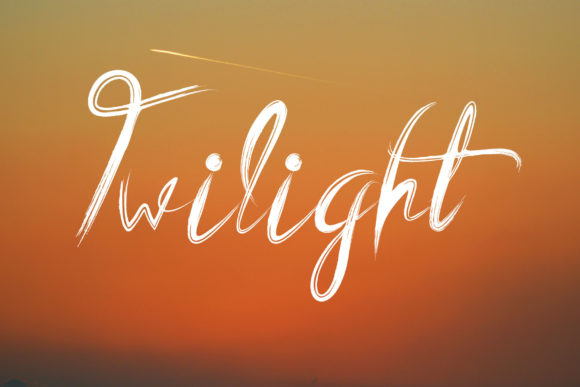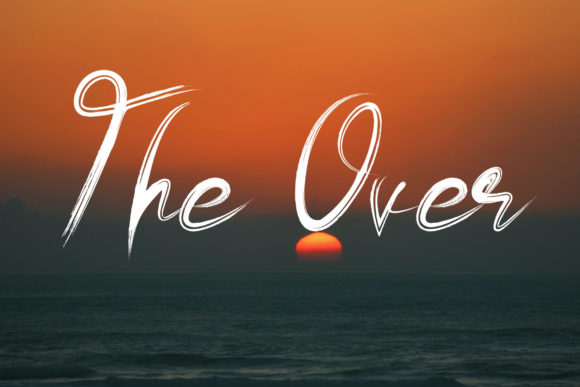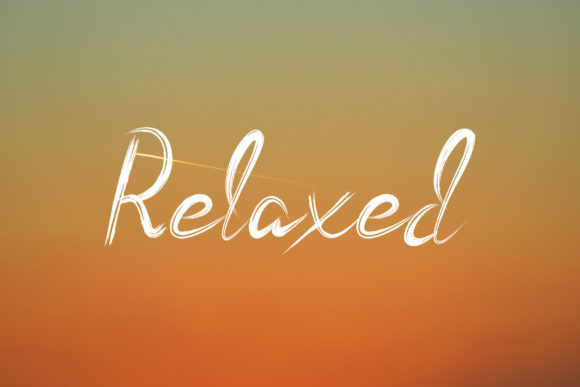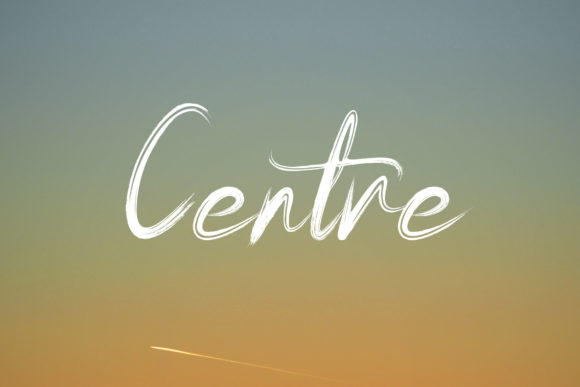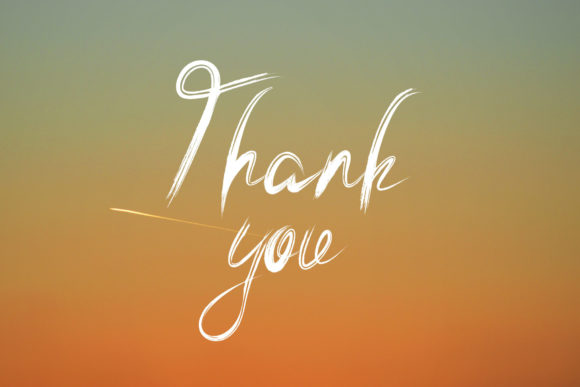
Twilight Font
About Twilight Font
Twilight is a lovely and delicate brushed script font that exudes elegance and class. This font was particularly crafted for those who need a beautiful and refreshing look to their designs.